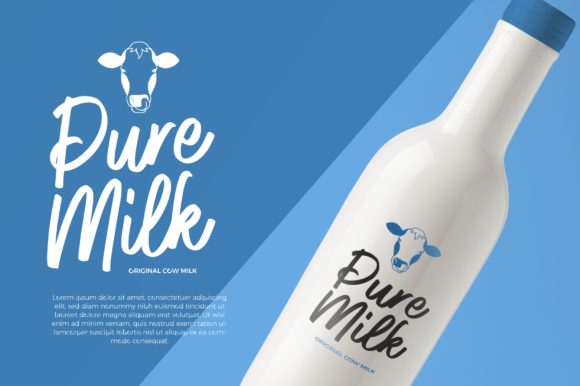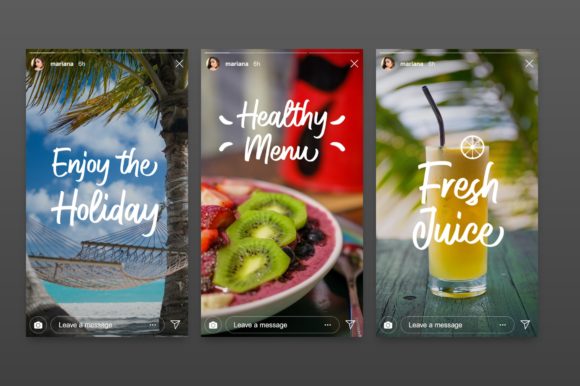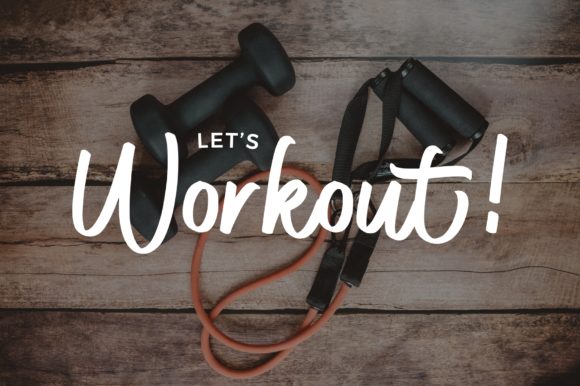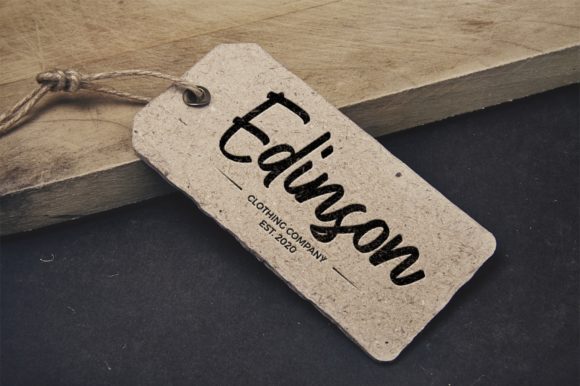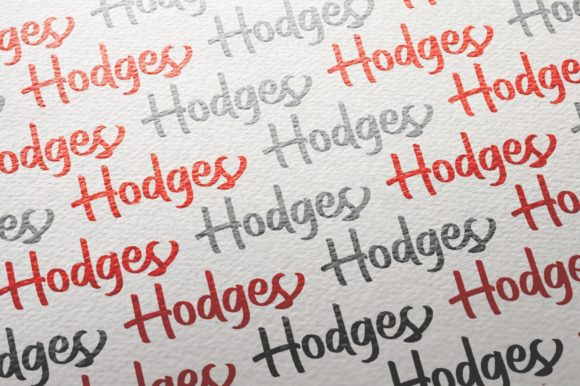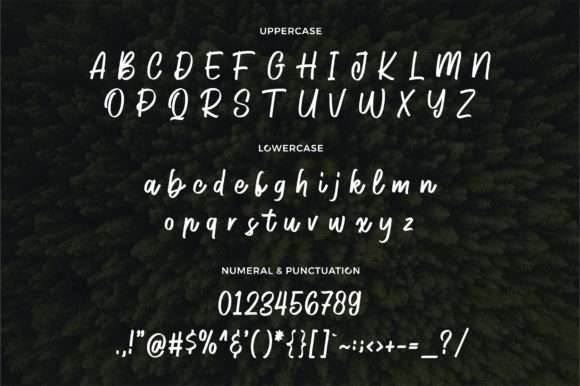
Introduction to Hodges Font
Hodges is a beautiful handwritten font, created with the help of a brush pen.
Fall in love with its incredibly versatile style and use it to create gorgeous wedding invitations, beautiful stationary art, eye-catching social media posts, and much more .
Hodges Font offers exceptional quality and versatility, making it a valuable addition to your design toolkit. Whether you’re creating for personal projects or commercial use, Hodges Font delivers professional results.